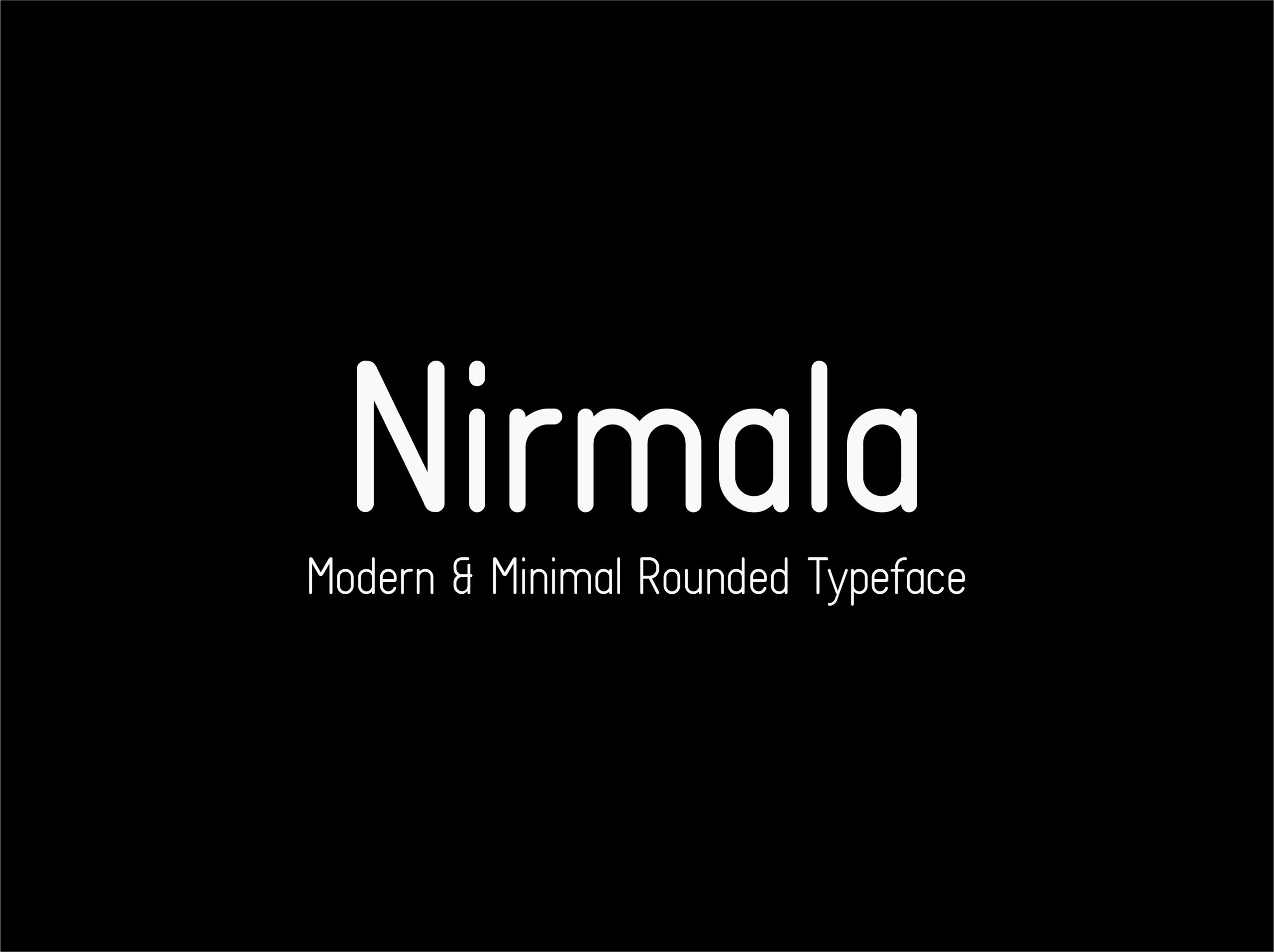
Nirmala Font
Nirmala is a minimal, neat and clean sans serif font. It can easily be matched to an incredibly large set of projects, so add it to your creative ideas and notice how it makes them stand out!
Perfect for branding projects, Logo design, Clothing Branding, product packaging, magazine headers, or simply as a stylish text overlay to any background image.
Nirmala Sans Serif Font